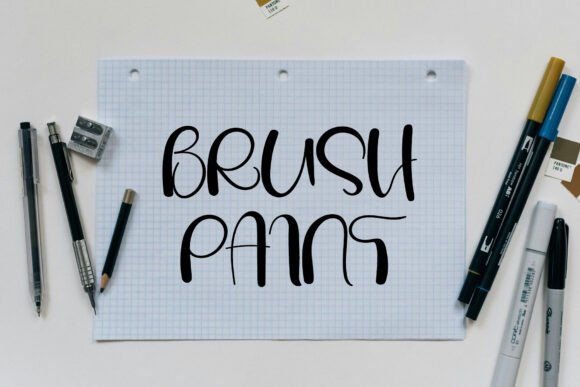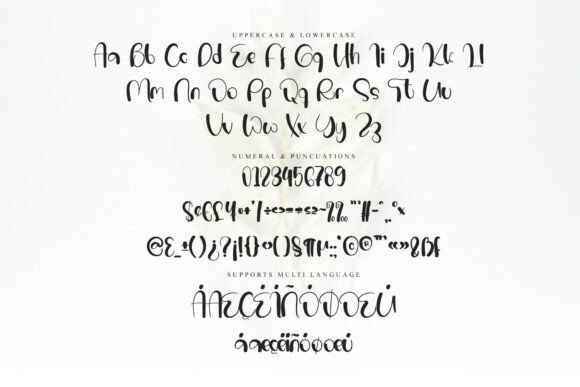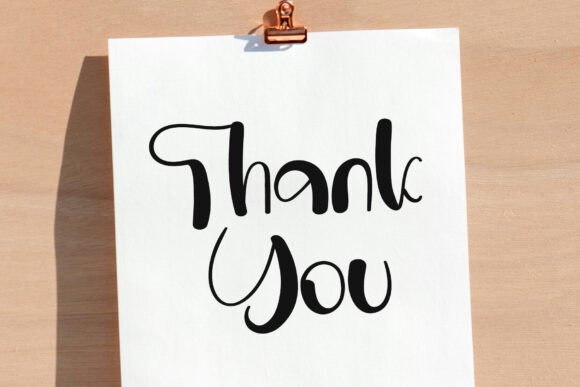
Grandma Birthday Font — Free Download Now
Introduction to Grandma Birthday Font
Have you ever found yourself in a rush to create a heartfelt birthday card for your grandmother, but struggling to find the perfect font to convey your emotions? I’m sure many of us have been there. As designers, we know that the right font can make all the difference in our creative projects. And that’s exactly why I’m excited to introduce you to the Grandma Birthday Font, a sweet and cursive handwritten font that’s sure to add a touch of joy and romance to any design.
This beautiful font is a treasure trove for designers looking for a high-quality design resource. With its transparent background and versatility, it’s perfect for branding, logo design, wedding invitations, greeting cards, and more. And the best part? It’s available for free download, making it an invaluable asset for any creative project.
Key Features of Grandma Birthday Font
• High-quality, customizable font perfect for creative projects and special occasions, such as grandma’s birthday celebrations.
• Unique, cursive design with a transparent background, making it ideal for overlaying on images or using as a standalone design resource.
• Perfect for adding a personal touch to grandma’s birthday celebration, whether it’s a DIY card, a custom invitation, or a heartfelt message.
Honest Review: Grandma Birthday Font
I recently stumbled upon the Grandma Birthday Font, a free download that caught my eye for a creative project. The font’s playful and whimsical design makes it perfect for adding a personal touch to birthday cards or other celebratory materials.
• High-quality design: The font’s crisp lines and smooth curves make it a great addition to any design.
• Transparent background: This makes it easy to layer the font over other design elements without any issues.
• Perfect for creative projects: The font’s unique style makes it ideal for birthday invitations, cards, and other celebratory materials.
• Limited character set: The font may not include all the characters you need for a comprehensive design.
• Not ideal for professional use: While the font is great for personal projects, it may not be suitable for professional use due to its casual style.
Overall, I’m impressed with the Grandma Birthday Font. Its playful design and high-quality aesthetic make it a great resource for designers. While it has some limitations, it’s perfect for creative projects and adds a personal touch to any design.
The Grandma Birthday Font is perfect for creating custom birthday cards, invitations, and party decorations. You can also use it to add a personal touch to your social media posts, photo albums, and scrapbook pages.
To get the most out of the Grandma Birthday Font, experiment with different font sizes, colors, and combinations with other design elements. You can also use the font with a transparent background to create a unique and eye-catching design.